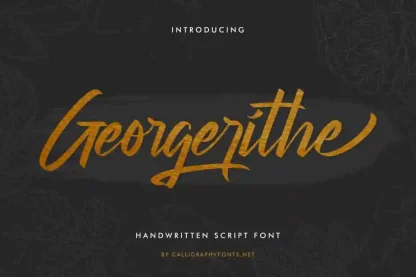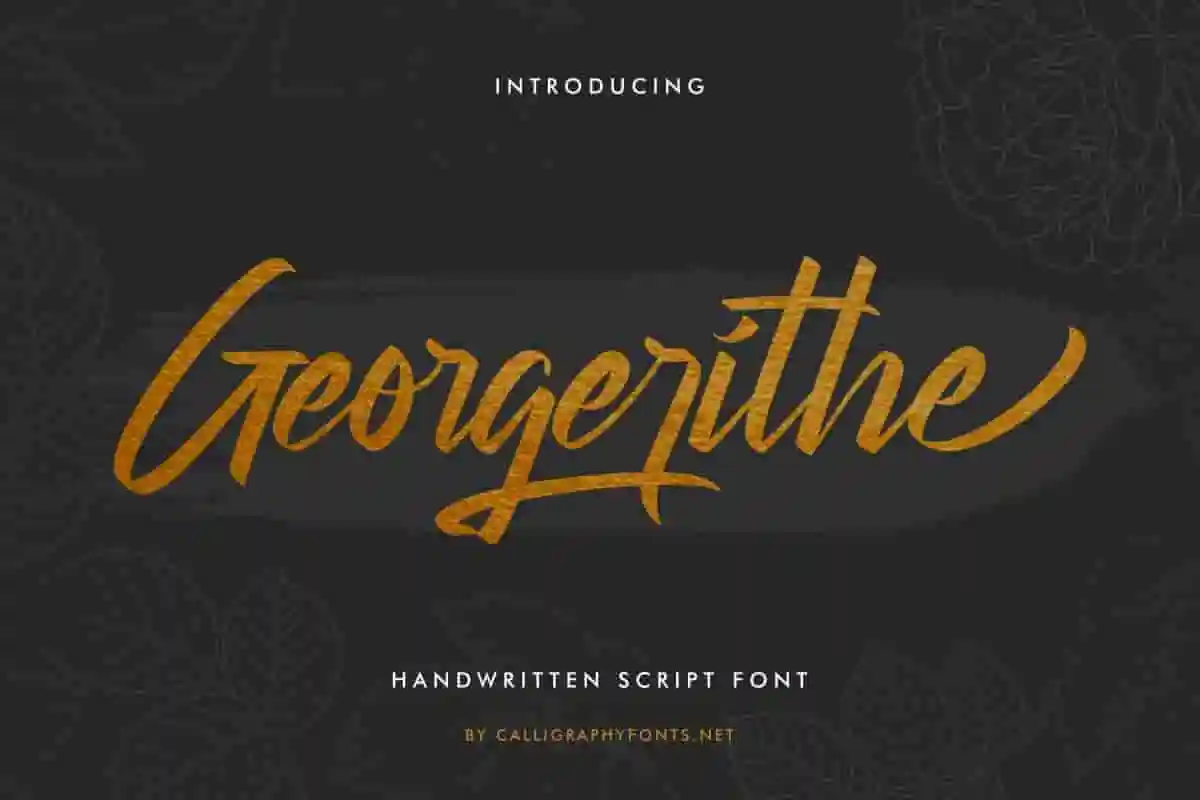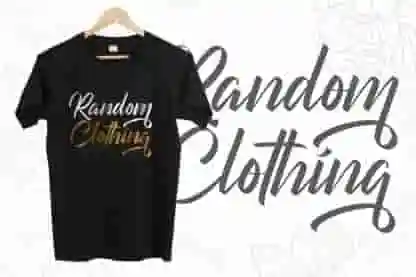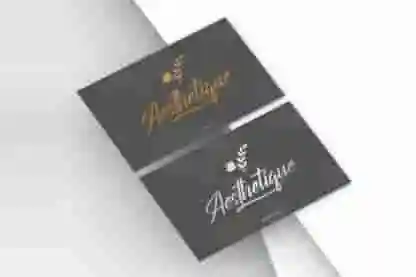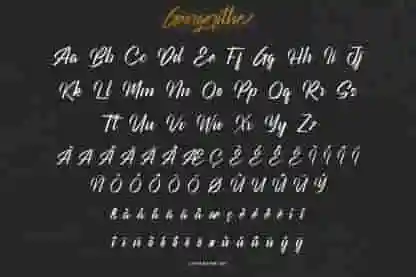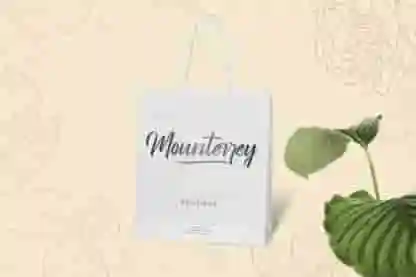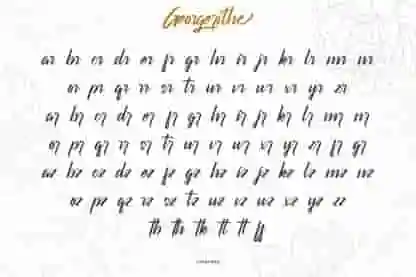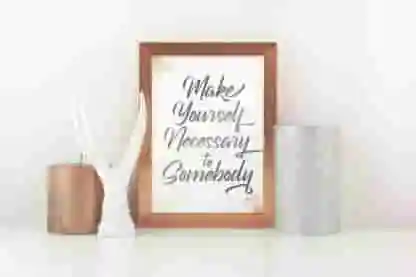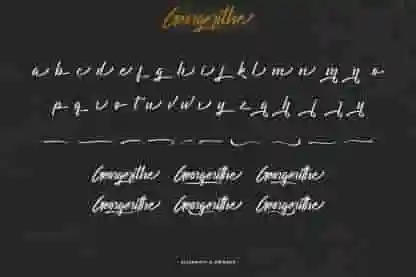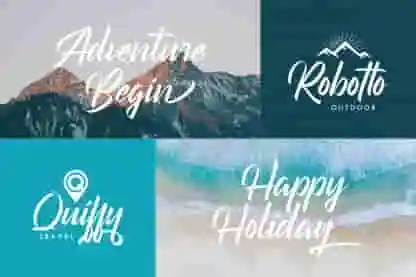
Georgerithe Font
Georgerithe Font is an original brush calligraphy font by CalligraphyFonts.net. It has awesome characters that is great for logotype, invitation, flyer etc
Georgerithe Font is a modern calligraphic style font. The look of this font are beautiful, modern, elegant, luxury, lettering touch and sophisticated brush font.